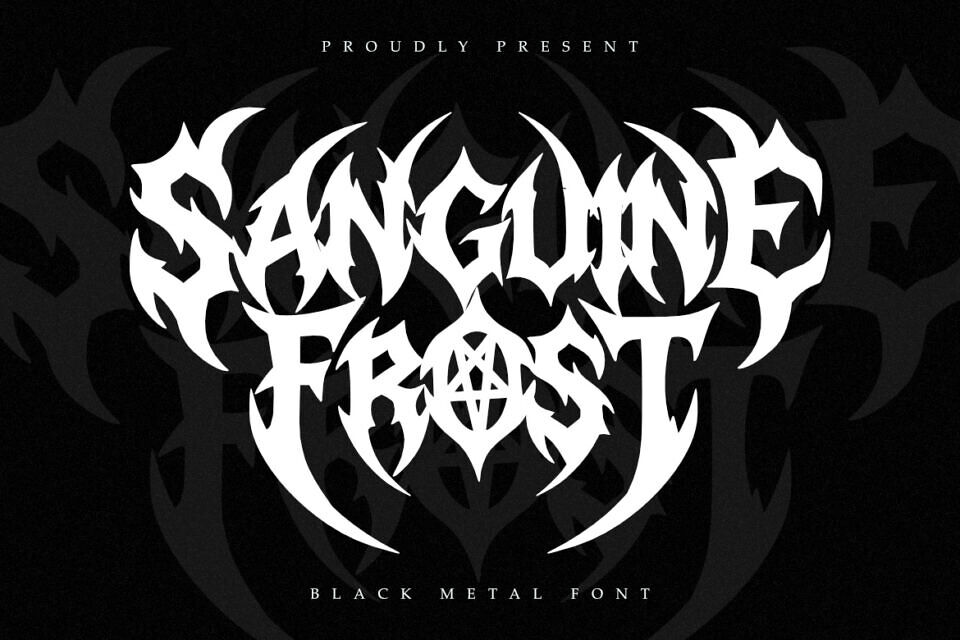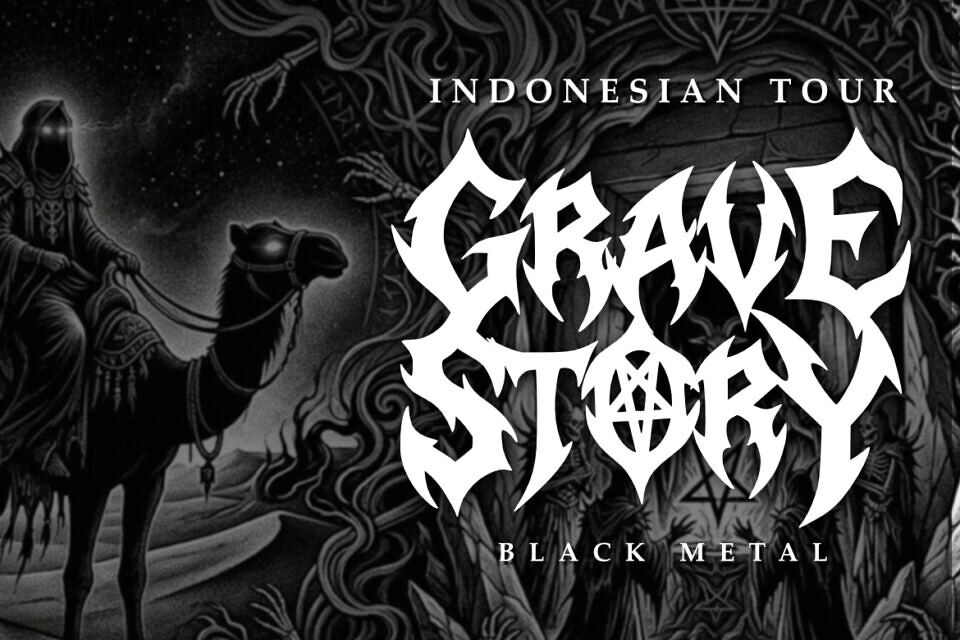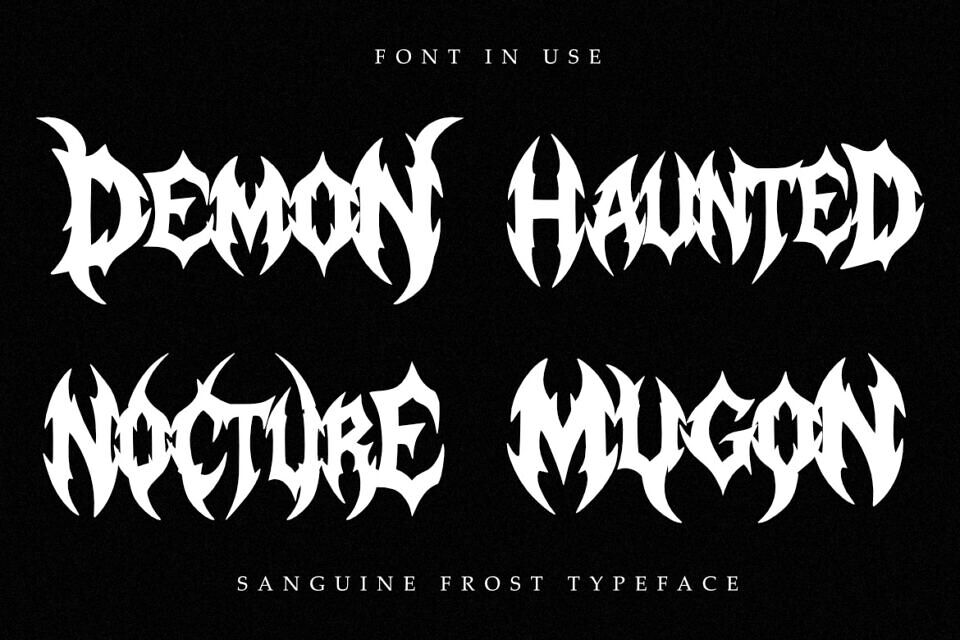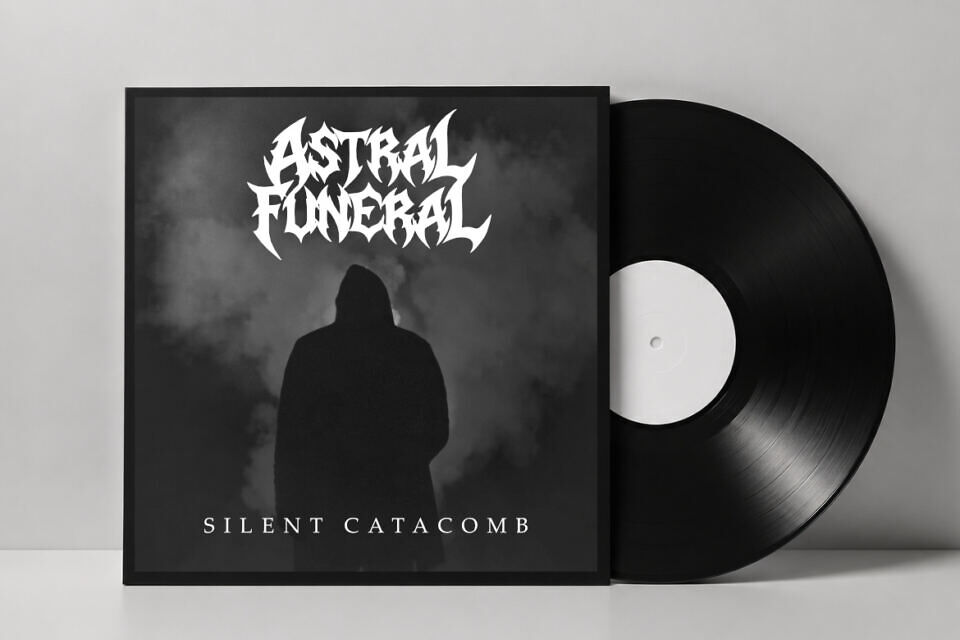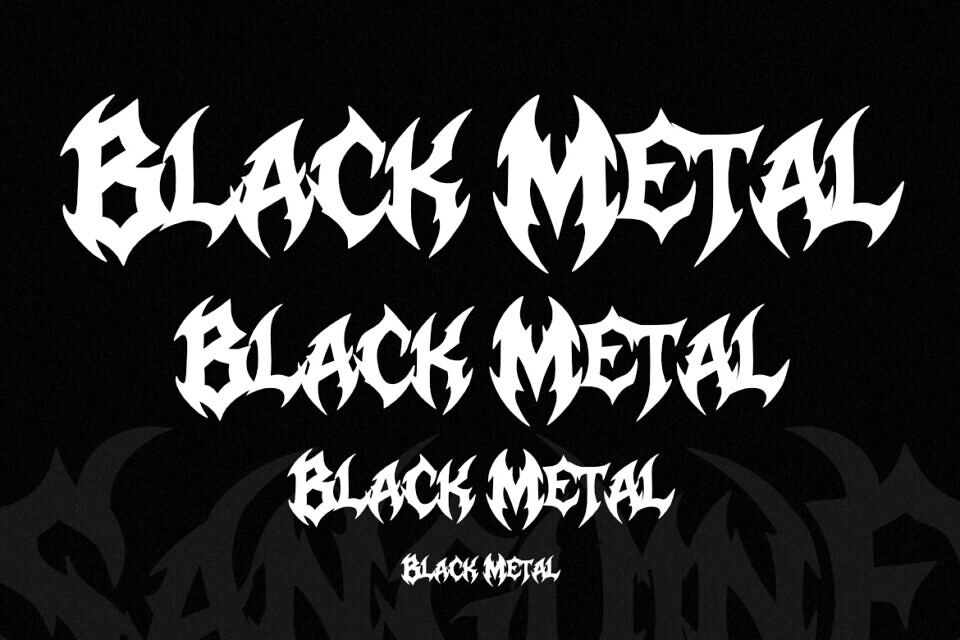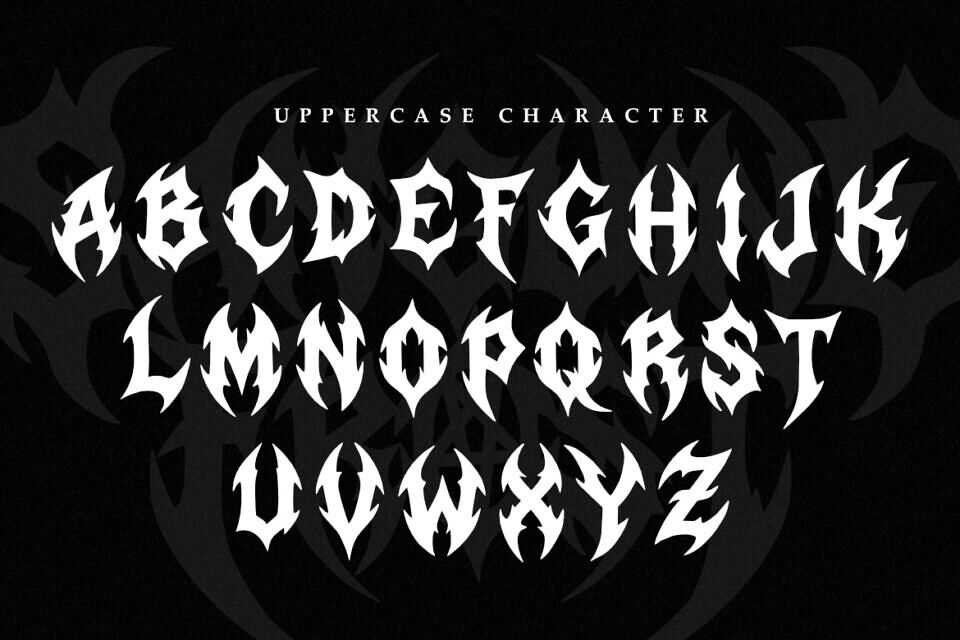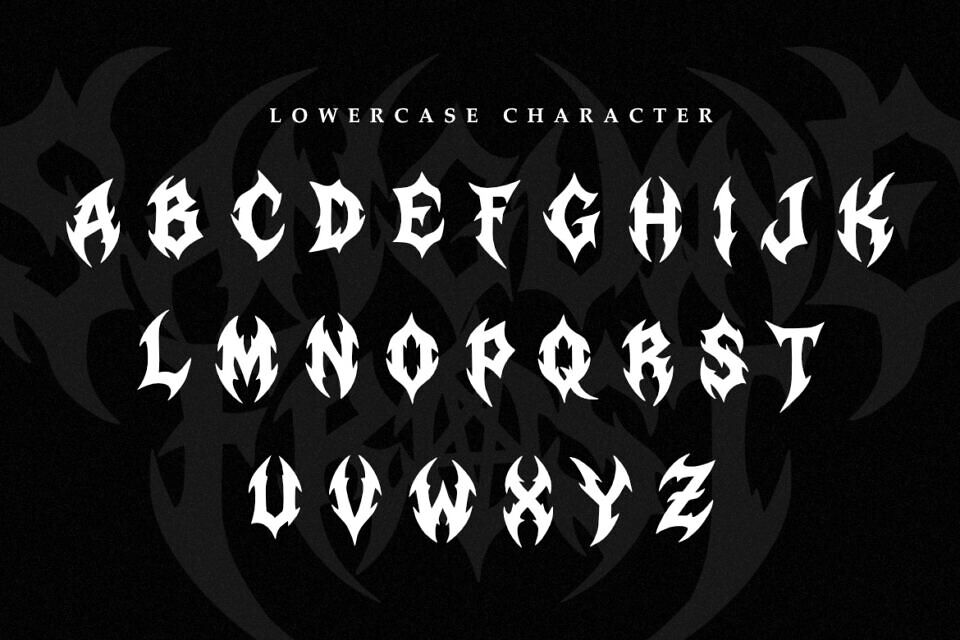
Sanguine Frost Font
Sanguine Frost is a brutal professional font designed for sophisticated branding and high-end extreme design projects. Its sharp and aggressive letterforms provide a contemporary yet timeless feel, striking a perfect balance between occult imagery and modern metal aesthetics.
Inspired by the vibrant energy of the underground scene and cold atmospheric darkness, Sanguine Frost offers versatility and adaptability for various design applications, helping you communicate a polished and modern aesthetic that leaves a lasting impression.